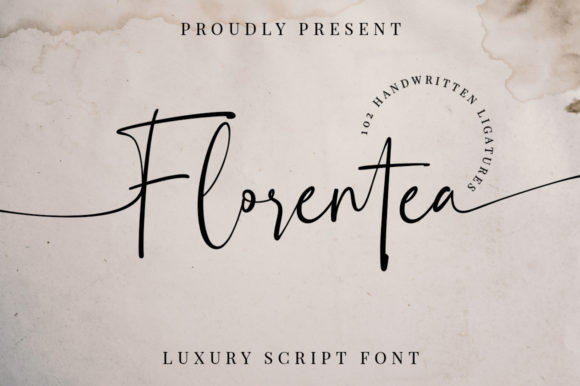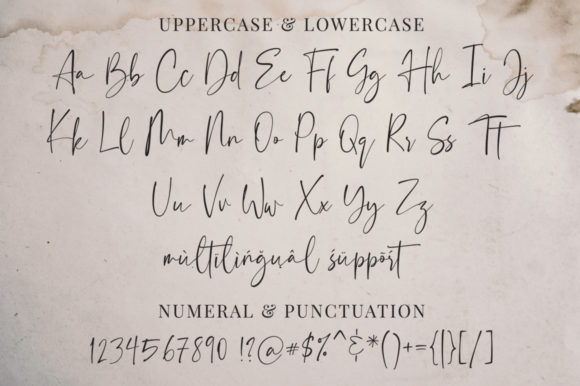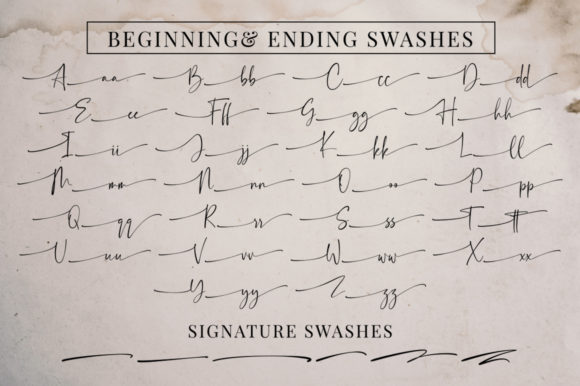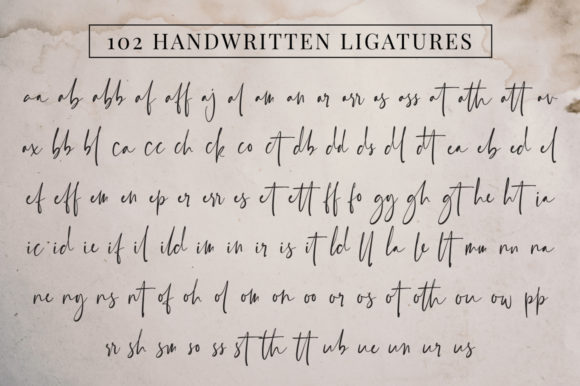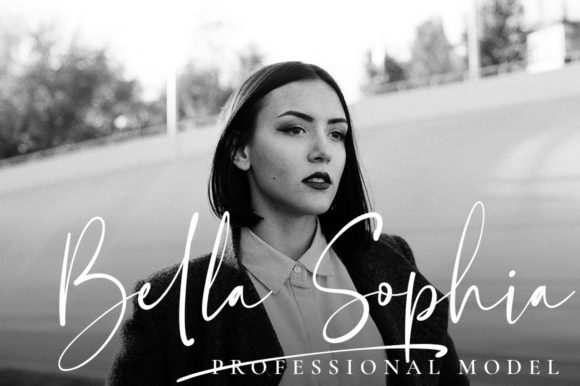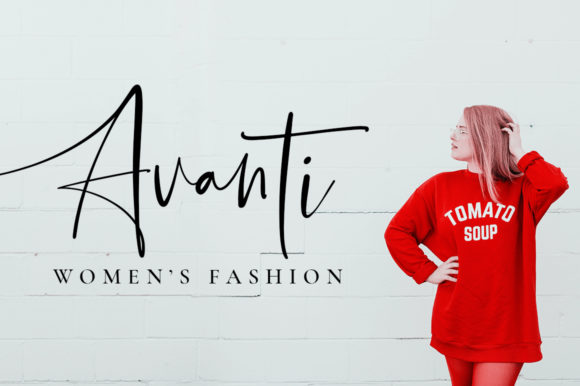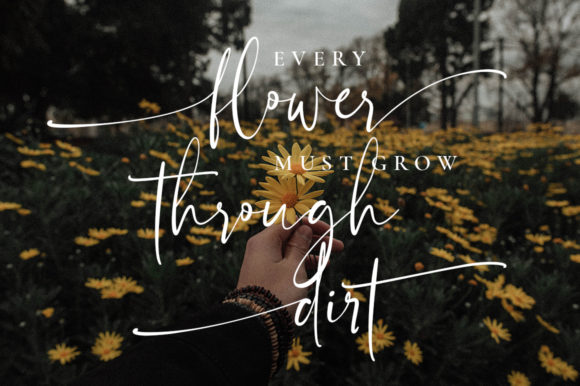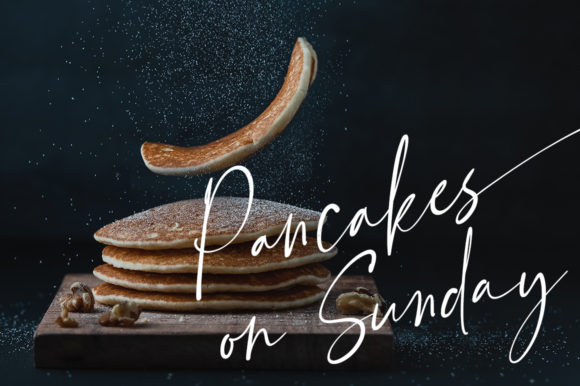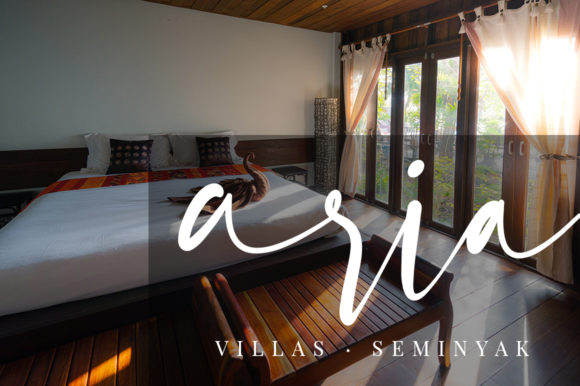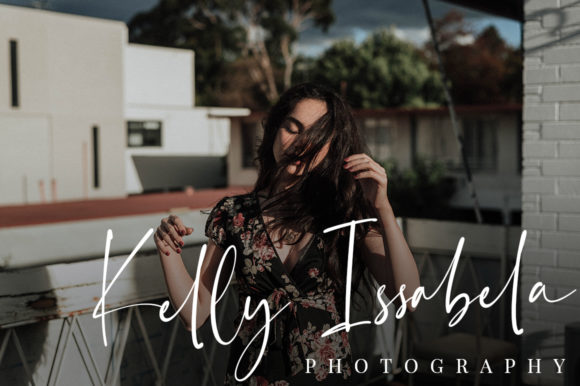
Florentea Font
About Florentea Font
Florentea sounds like a beautiful and versatile handwritten font that can elevate a wide range of design projects. With its charming and elegant style, it offers numerous creative possibilities. Here are some ideas on how to use Florentea font to create stunning designs:
1. Wedding Invitations: Design romantic and sophisticated wedding invitations using Florentea font to add a touch of elegance and personalization.
2. Thank You Cards: Create heartfelt and stylish thank you cards with Florentea font to express gratitude in a unique way.
3. Quotes and Typography Art: Use Florentea font to create stunning typography art featuring inspirational quotes, phrases, or song lyrics.
4. Greeting Cards: Design elegant and beautiful greeting cards for various occasions, from birthdays to anniversaries.
5. Logos and Branding: Incorporate Florentea font into your logo design and branding materials to create a distinctive and sophisticated brand identity.
6. Business Cards: Use Florentea font to design professional and eye-catching business cards that leave a lasting impression.
7. Social Media Graphics: Create captivating social media posts and stories using Florentea font for quotes, announcements, and promotions.
8. Stationery Design: Design personalized stationery sets, including letterheads and envelopes, with Florentea font for a polished and stylish look.
9. Art Prints and Wall Decor: Create art prints featuring Florentea font to adorn walls with elegant and artistic designs.
10. Product Packaging: Incorporate Florentea font in product labels and packaging to add a touch of sophistication and handmade charm.
11. Event Invitations: Design chic and stylish invitations for special events or parties using Florentea font.
12. Signage and Banners: Create eye-catching signage and banners for events or storefronts using Florentea font.
13. Blog and Website Design: Use Florentea font for blog headers, website titles, and featured images to enhance the overall design.
14. Apparel Design: Incorporate Florentea font in apparel designs, such as t-shirts or accessories, for a fashionable and refined style.
15. Menu Design: Use Florentea font in restaurant menus to add an elegant and sophisticated touch.
16. Book Covers: Design book covers with Florentea font for a visually appealing and artistic presentation.
17. Calendars and Planners: Create beautiful and stylish calendars or planners using Florentea font for a chic and timeless look.
18. Journal and Notebook Covers: Design captivating journal covers with Florentea font to make writing experiences even more special.
19. Flyers and Brochures: Use Florentea font in promotional materials, such as flyers and brochures, for a polished and classy appearance.
20. Gift Tags and Labels: Design charming and stylish gift tags and labels using Florentea font to add a personal touch to gifts.
In summary, Florentea is a charming and elegant handwritten font with a PUA encoding, offering easy access to its stunning alternates and swashes. Use Florentea font to create breathtaking designs for weddings, greeting cards, branding, social media, and various other projects, letting its versatile style shine and make a lasting impression on your audience!